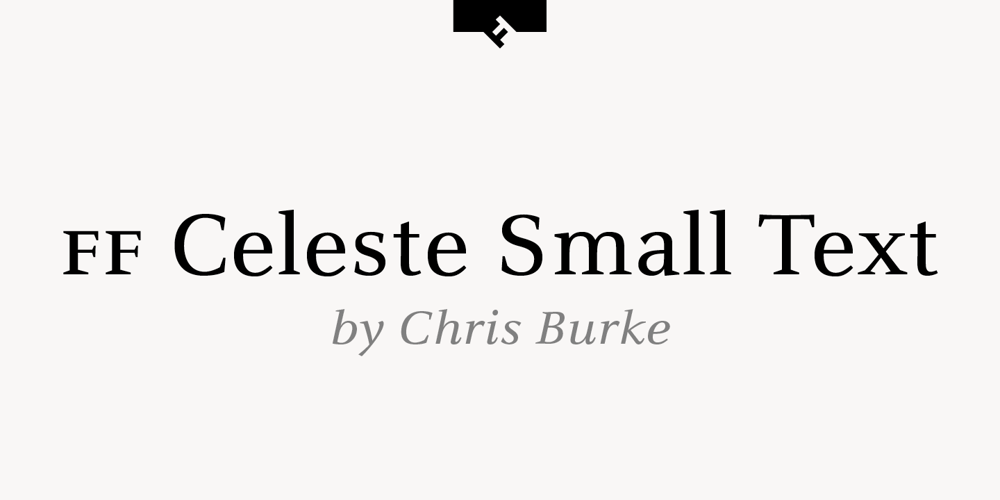
FF Celeste Small Text Font Family was designed by Christopher Burke and published by FontFont. FF Celeste Small Text contains 4 styles and family package options. British type designer Chris Burke created this serif FontFont in 1994. The family contains 4 weights: Regular, Italic, Bold, and Bold Italic and is ideally suited for editorial and publishing and small text. FF Celeste Small Text provides advanced typographical support with features such as ligatures, small capitals, alternate characters, case-sensitive forms, fractions, and super- and subscript characters. It comes with a complete range of figure set options – oldstyle and lining figures, each in tabular and proportional widths. This FontFont is a member of the FF Celeste super family, which also includes FF Celeste and FF Celeste Sans.